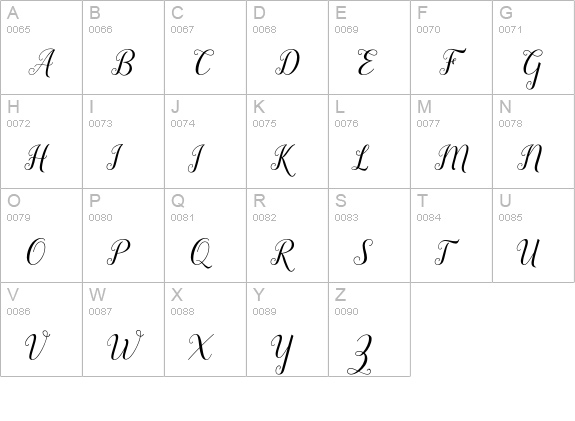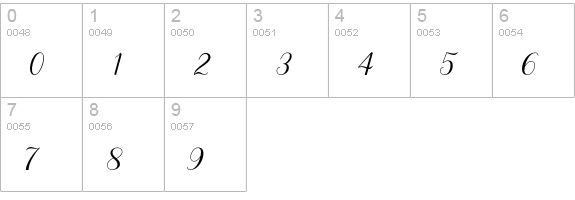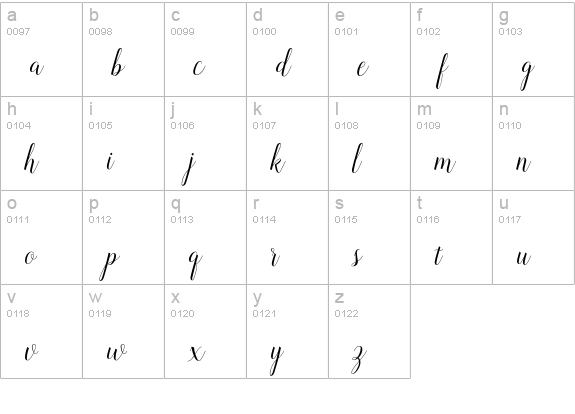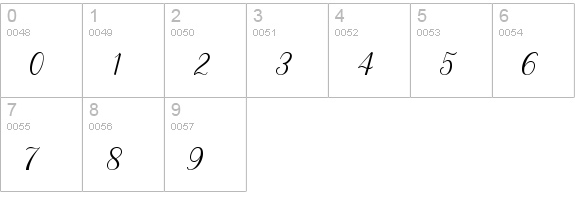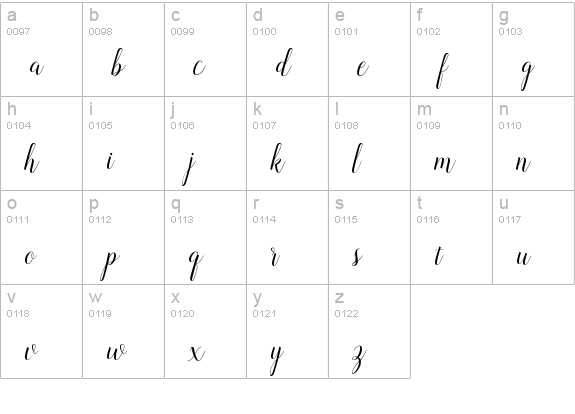
Revallyna Font Details
Revallyna font is a modern and elegant typeface that exudes sophistication and style. With its sleek lines and distinctive letterforms, this font is perfect for a variety of design projects, from branding to editorial designs. The clean and crisp look of Revallyna font makes it easy to read and adds a touch of refinement to any project. What sets Revallyna font apart is that it is available for free download at FontsMarket.com. This means that you can easily access this high-quality font without any cost, making it a valuable addition to your font library. Whether you're a graphic designer, a blogger, or a content creator, Revallyna font is a versatile choice that will elevate your designs and help you stand out from the crowd. Download Revallyna font today and add a touch of elegance to your projects.